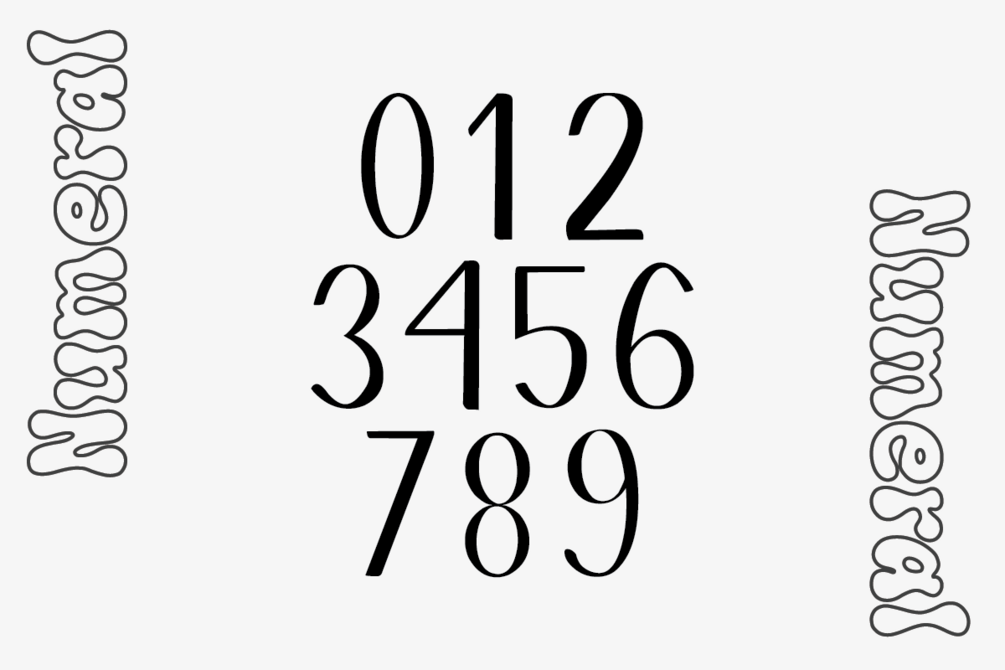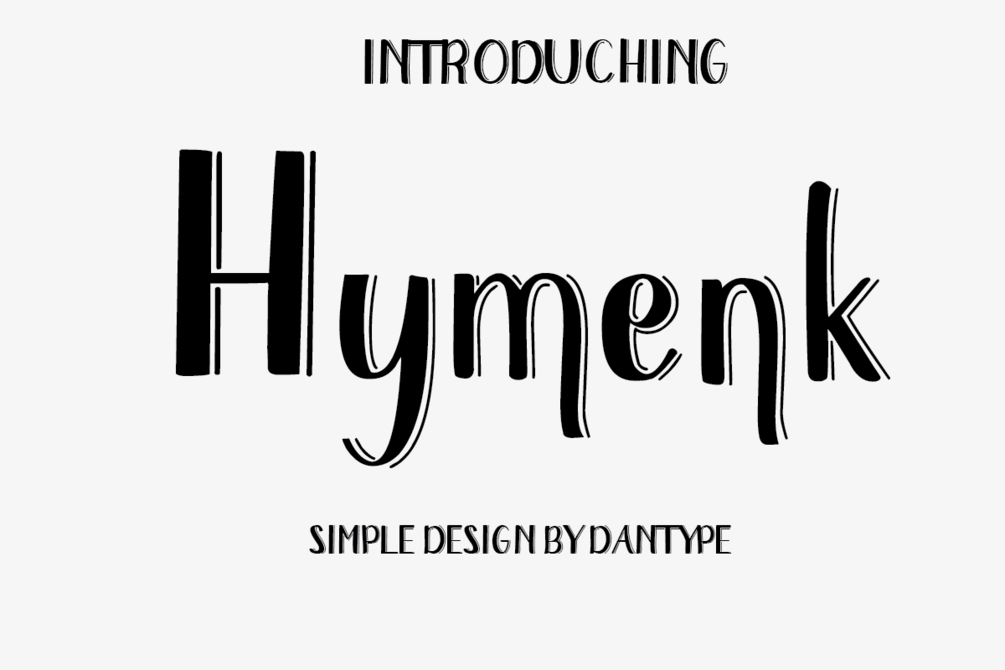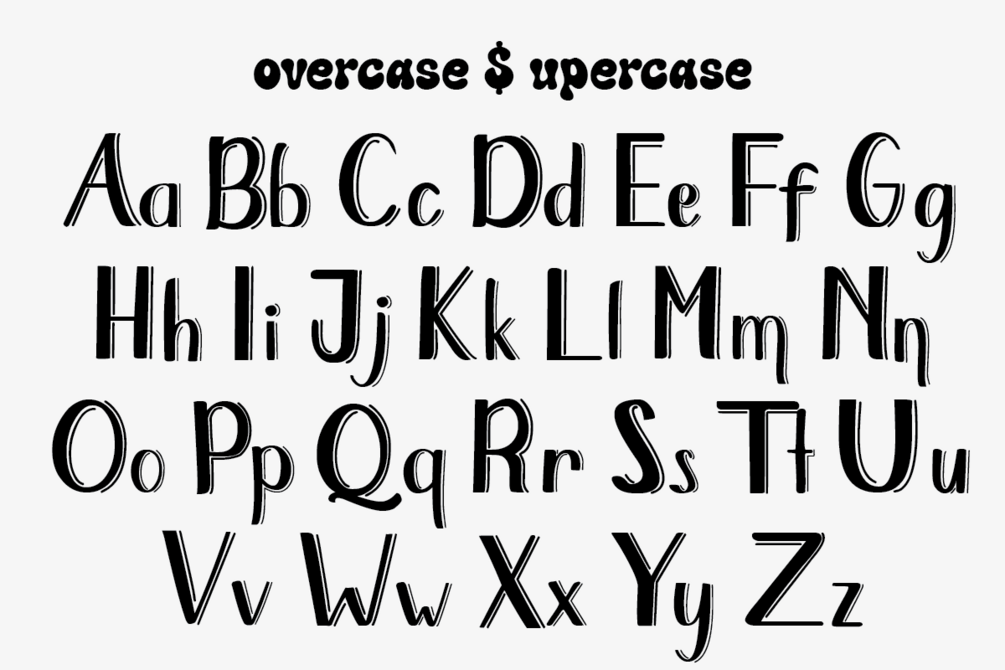
Hymenk
Hymenk Display font. This font would be perfect for photography, watermarks, social media posts, advertisements, logos & branding, invitations, product design, labels, stationery, product packaging, special events, and other projects.